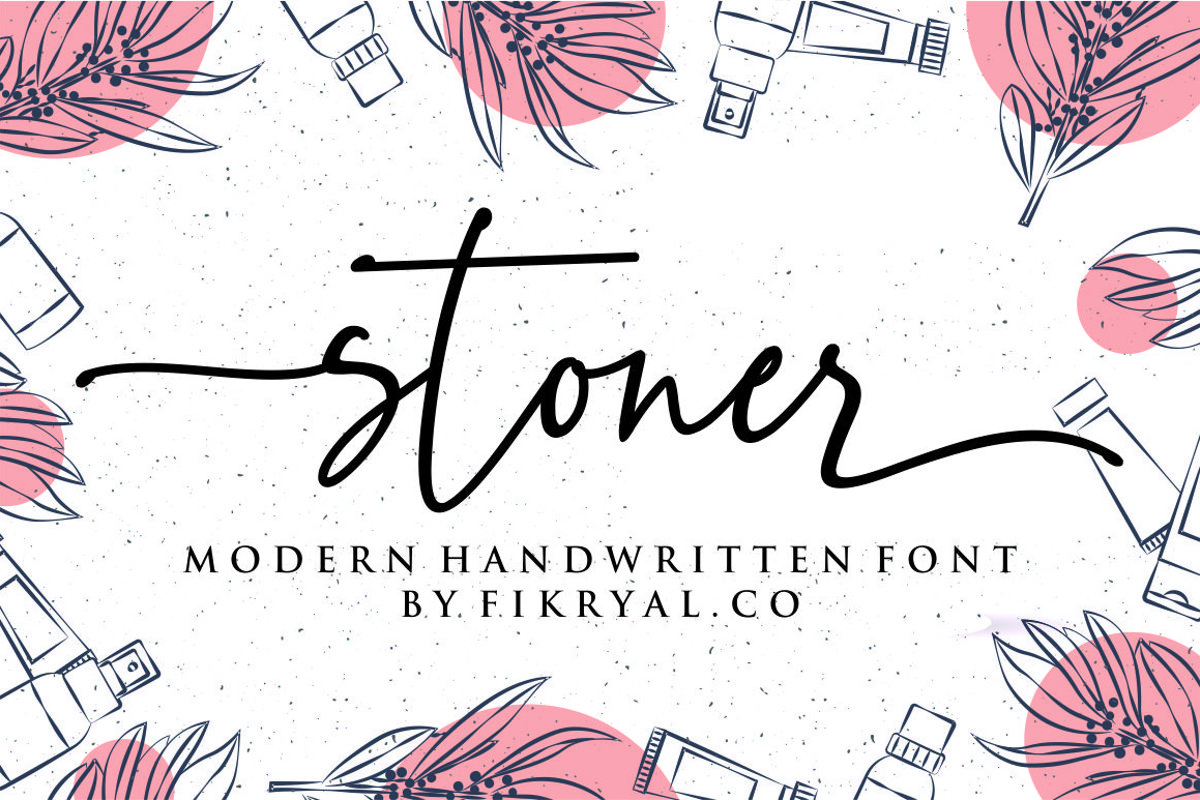
stoner
stoner - Font  is a new modern & stylish handwritten font.
I'ts Perfect for logo,branding, invitation, tittle, wedding designs, social media posts, advertisements, product packaging, product designs, label, photography, watermark, special event,magazine,web design,etc.What's Included :
• stylistic alternate
• stylistic alternate 1
• stylistic alternate 2
• stylistic alternate 3
• swash
• numeral & symbols